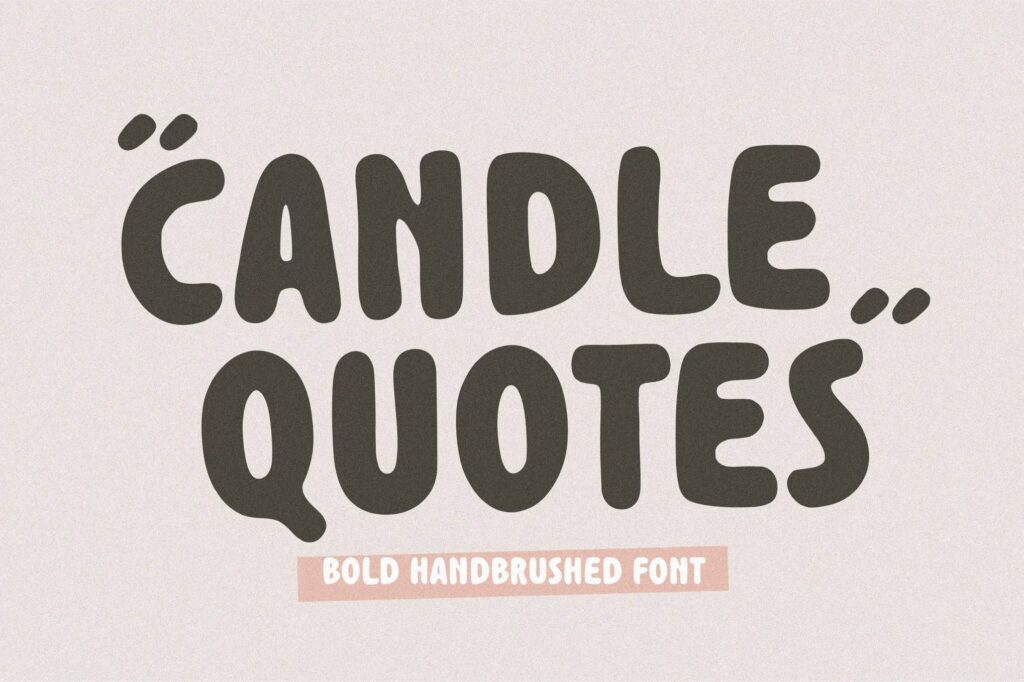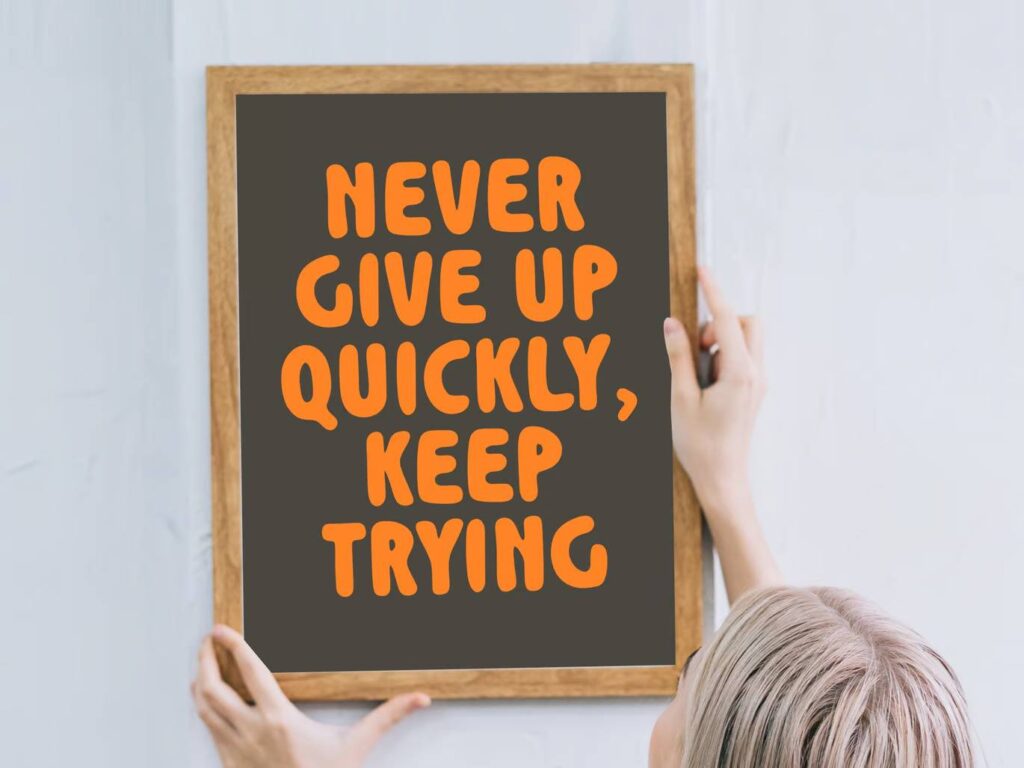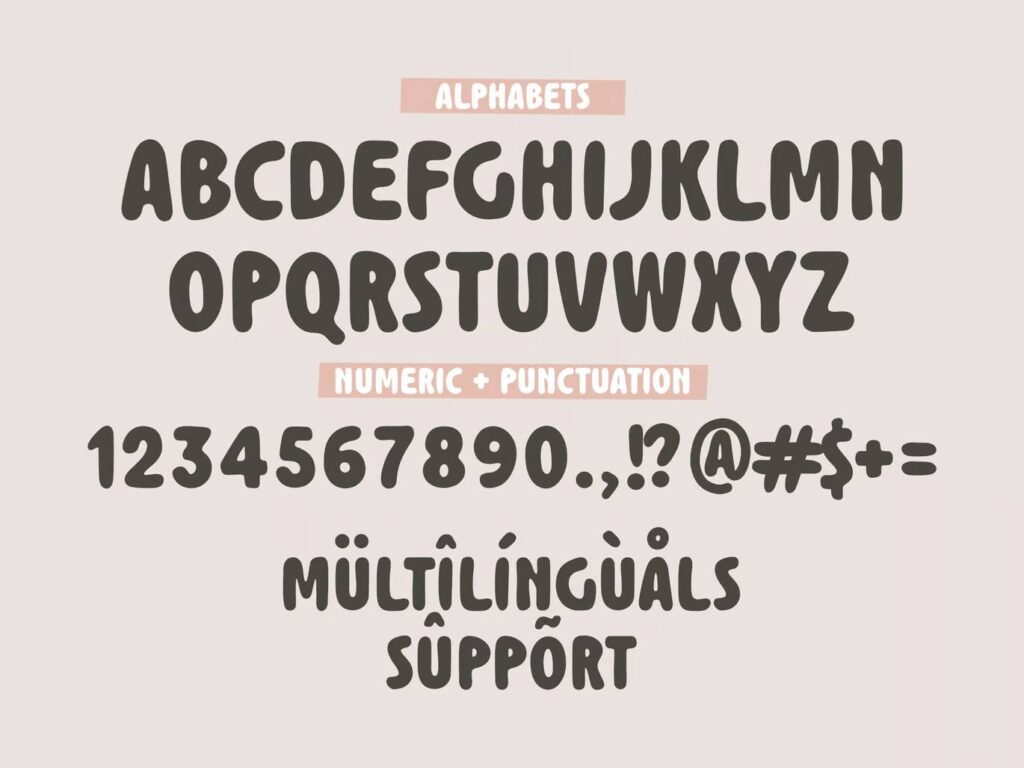
Candle Quotes Font
Introducing Candle Quotes font by Balpirick Studio – a bold handbrushed font crafted to bring expressive charm to your designs. Its strong, artistic strokes make it ideal for writing quotes, personal notes, and inspirational messages. Versatile and eye-catching, Candle Quotes also works beautifully in logos, book covers, magazines, apparel designs, and more, adding a handcrafted, authentic feel to any project.
Candle Quotes – Bold Handbrushed Logo Font